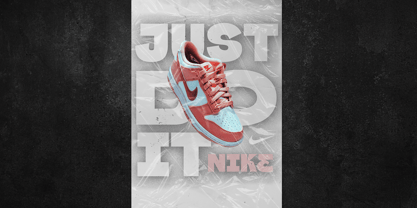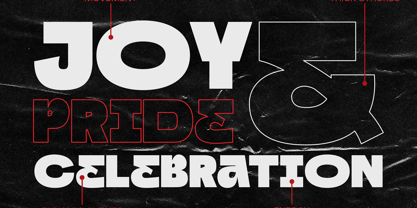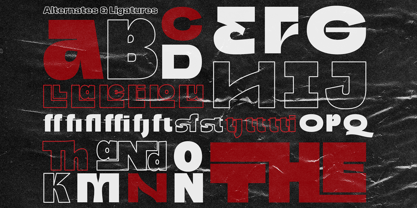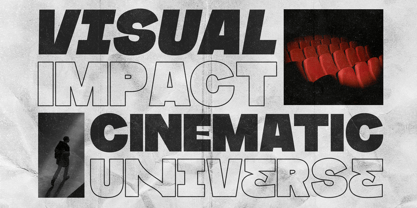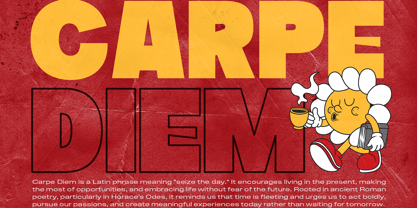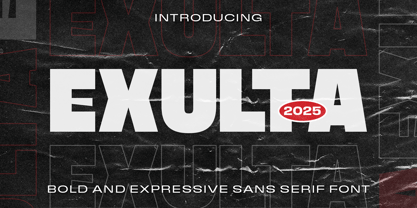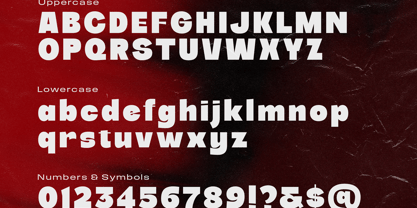
Exulta
by Krafted
The Exulta Font Family was designed by Heri Imanudin and published by Krafted. Exulta contains 1 styles. More about this family
Designed to make a statement, Exulta is a powerful, modern font that stands out in any project. Perfect for websites, social media branding, eye-catching posters, bold advertisements, and more!
Capture your audience’s attention with this striking, expressive sans serif font that delivers style and impact.
• Multilingual & Ligature Support
• Full sets of Punctuation and Numerals